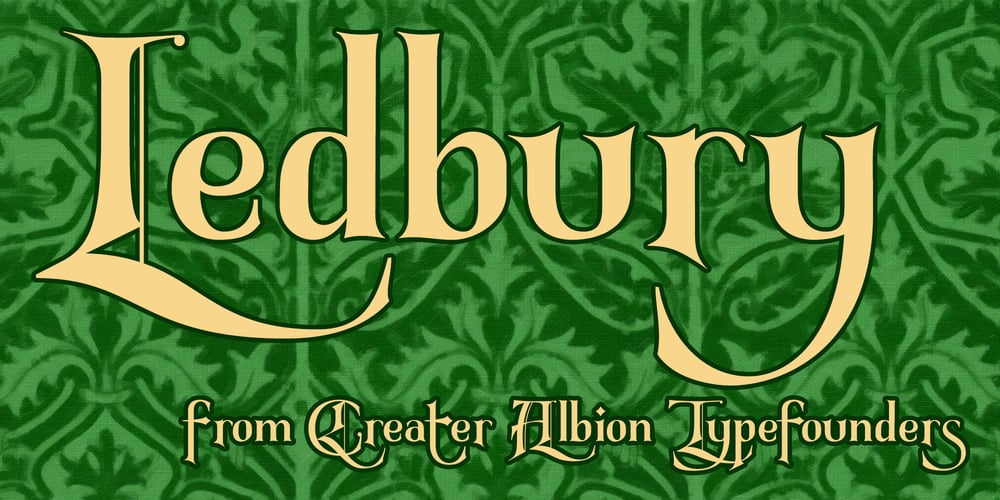
Ledbury
Ledbury font
Ledbury Font Family was designed by Paul James Lloyd and published by Greater Albion Typefounders. Ledbury contains 1 styles and family package options. Ledbury is a calligraphic display face, inspired by hand lettered specimens and combining Roman and Blackletter elements. It is designed with an extensive range of ligatures and stylistic alternate forms to preserve that hand written look. Use Ledbury for posters and banners, whether you need an Elizabethan touch or a hint of the Victorian Gothic Revival. A typeface Mr Augustus Welby Northmore Pugin would be proud to employ!